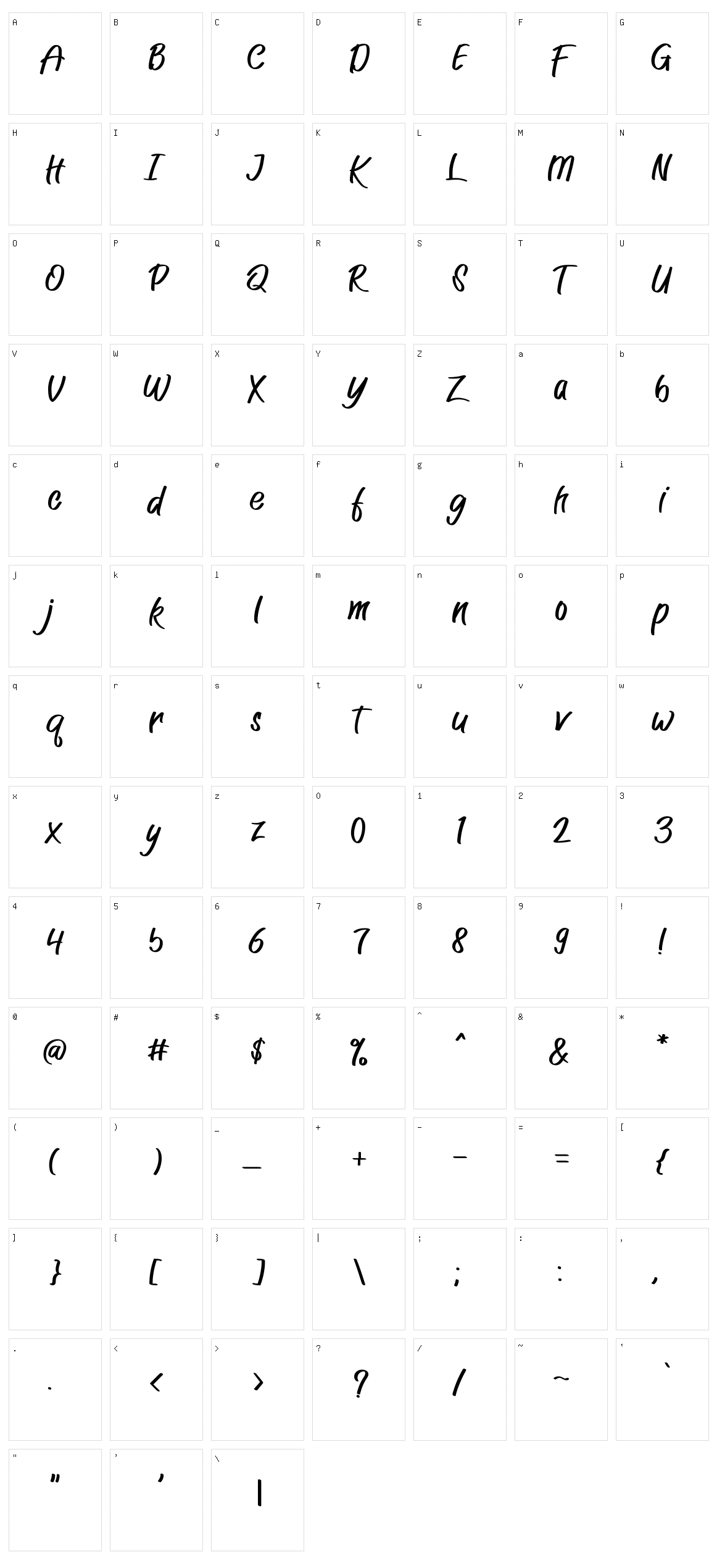
The free font Dinamica Star is carefully designed by Reguler Studio, showcasing a thoughtful balance of creativity and usability and falls under the Script font style. When you download the ZIP file, it contains only 20.51 KB of font files, making it lightweight and quick to download. Please review the license details below to understand permitted usage and distribution rights. If license information is not available, we recommend using this font for personal projects only or contacting the author directly for commercial usage permissions.